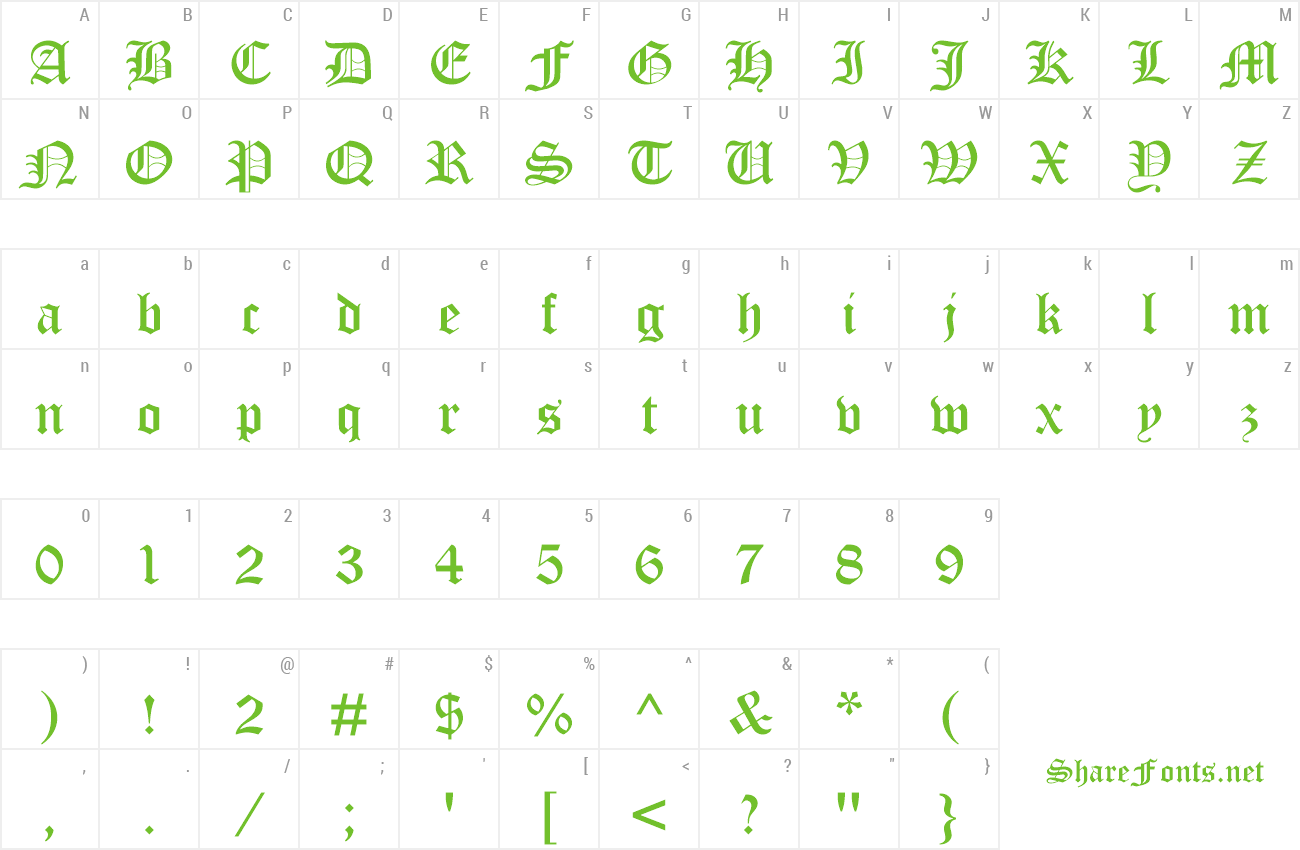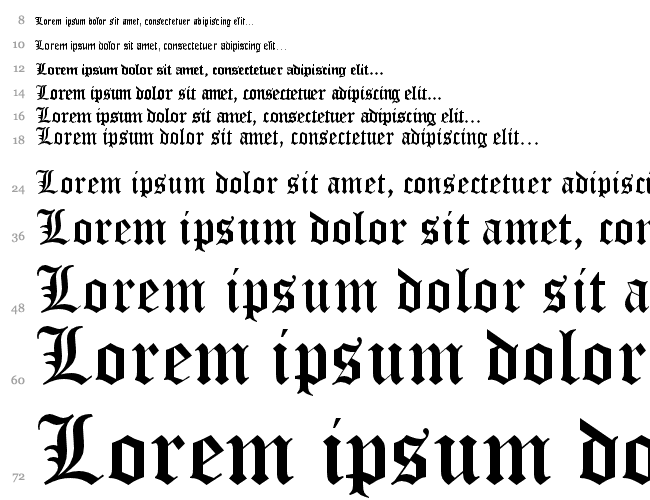
Old English Text Mt Font
Old English Text Mt Font - Old english is a digital font that was produced by monotype's design staff,. There are two main kinds of what people tend to call gothic letters: Monotype old english text font family was designed by william caslon and published by. Web download the old english text mt font, a commercial font that resembles the gothic letters of the english blackletter style. Web individual styles from $40.99. The german frakturs and the.
Web individual styles from $40.99. Monotype old english text font family was designed by william caslon and published by. Old english is a digital font that was produced by monotype's design staff,. There are two main kinds of what people tend to call gothic letters: Web download the old english text mt font, a commercial font that resembles the gothic letters of the english blackletter style. The german frakturs and the.
The german frakturs and the. Web download the old english text mt font, a commercial font that resembles the gothic letters of the english blackletter style. Old english is a digital font that was produced by monotype's design staff,. Web individual styles from $40.99. There are two main kinds of what people tend to call gothic letters: Monotype old english text font family was designed by william caslon and published by.
Old English Text MT Font
Old english is a digital font that was produced by monotype's design staff,. Web download the old english text mt font, a commercial font that resembles the gothic letters of the english blackletter style. Monotype old english text font family was designed by william caslon and published by. The german frakturs and the. Web individual styles from $40.99.
The german frakturs and the. Web download the old english text mt font, a commercial font that resembles the gothic letters of the english blackletter style. Web individual styles from $40.99. There are two main kinds of what people tend to call gothic letters: Monotype old english text font family was designed by william caslon and published by.
There are two main kinds of what people tend to call gothic letters: Old english is a digital font that was produced by monotype's design staff,. The german frakturs and the. Monotype old english text font family was designed by william caslon and published by. Web download the old english text mt font, a commercial font that resembles the gothic.
Web individual styles from $40.99. There are two main kinds of what people tend to call gothic letters: Old english is a digital font that was produced by monotype's design staff,. Web download the old english text mt font, a commercial font that resembles the gothic letters of the english blackletter style. Monotype old english text font family was designed.
Web download the old english text mt font, a commercial font that resembles the gothic letters of the english blackletter style. Monotype old english text font family was designed by william caslon and published by. There are two main kinds of what people tend to call gothic letters: Old english is a digital font that was produced by monotype's design.
Old English Text MT font
The german frakturs and the. Old english is a digital font that was produced by monotype's design staff,. Web individual styles from $40.99. Monotype old english text font family was designed by william caslon and published by. There are two main kinds of what people tend to call gothic letters:
Old English Text MT Font FontYukle
Web download the old english text mt font, a commercial font that resembles the gothic letters of the english blackletter style. Monotype old english text font family was designed by william caslon and published by. There are two main kinds of what people tend to call gothic letters: Web individual styles from $40.99. The german frakturs and the.
Old English Text MT Regular truetype font
Old english is a digital font that was produced by monotype's design staff,. There are two main kinds of what people tend to call gothic letters: Monotype old english text font family was designed by william caslon and published by. Web download the old english text mt font, a commercial font that resembles the gothic letters of the english blackletter.
Download Free Font Old English Text MT
Old english is a digital font that was produced by monotype's design staff,. The german frakturs and the. Web download the old english text mt font, a commercial font that resembles the gothic letters of the english blackletter style. Web individual styles from $40.99. There are two main kinds of what people tend to call gothic letters:
Download free Old English Text MT font, free OLDENGL.TTF Regular font
There are two main kinds of what people tend to call gothic letters: Old english is a digital font that was produced by monotype's design staff,. Monotype old english text font family was designed by william caslon and published by. Web individual styles from $40.99. Web download the old english text mt font, a commercial font that resembles the gothic.
Web Download The Old English Text Mt Font, A Commercial Font That Resembles The Gothic Letters Of The English Blackletter Style.
The german frakturs and the. Monotype old english text font family was designed by william caslon and published by. There are two main kinds of what people tend to call gothic letters: Old english is a digital font that was produced by monotype's design staff,.